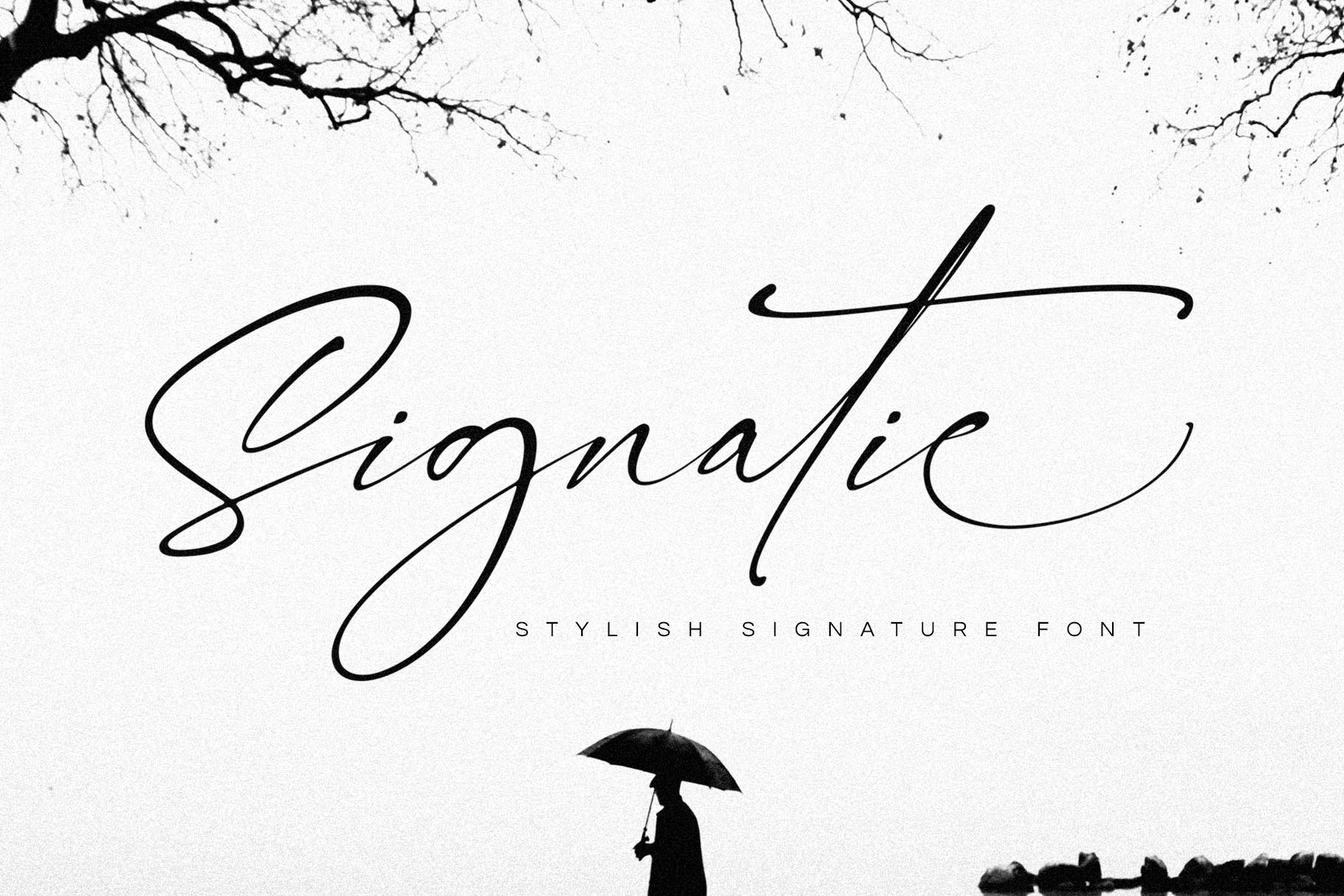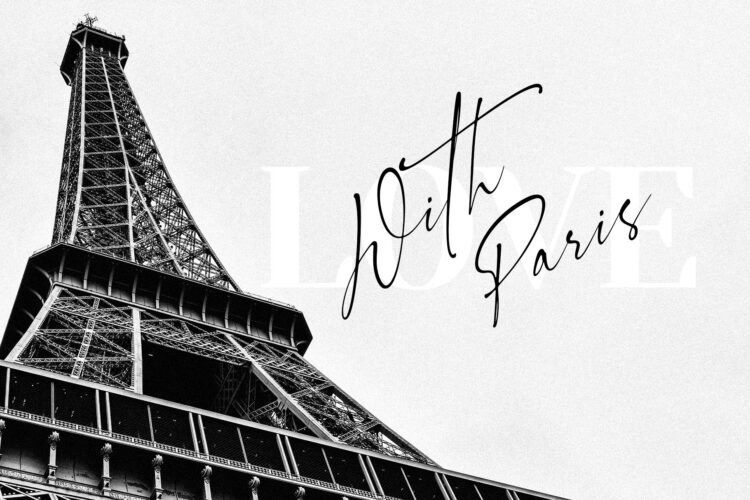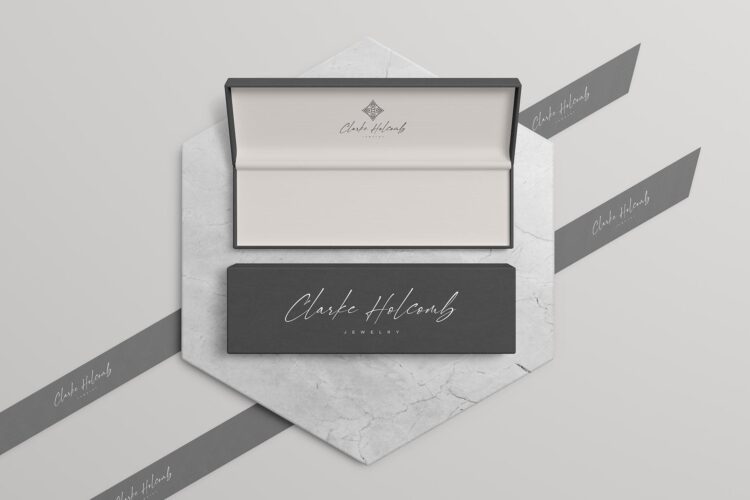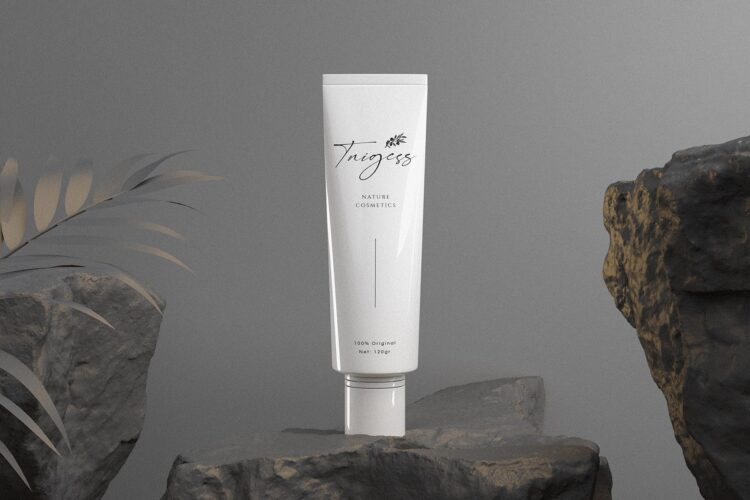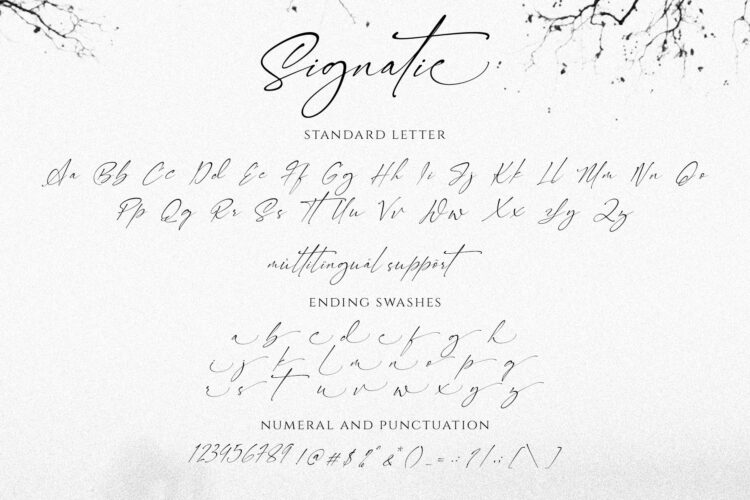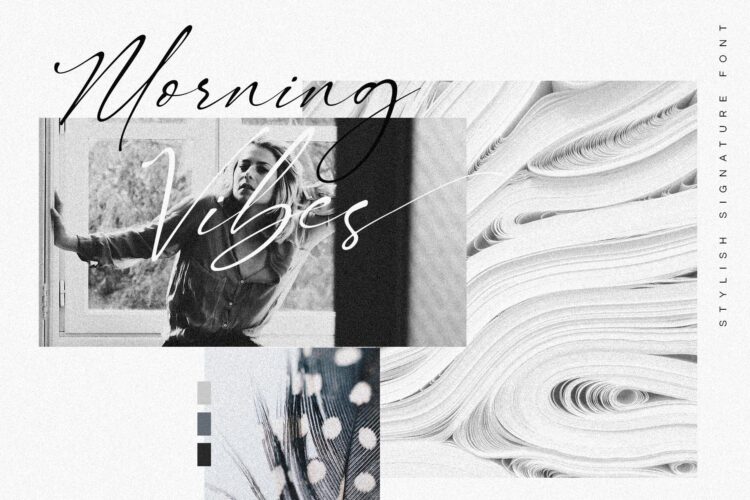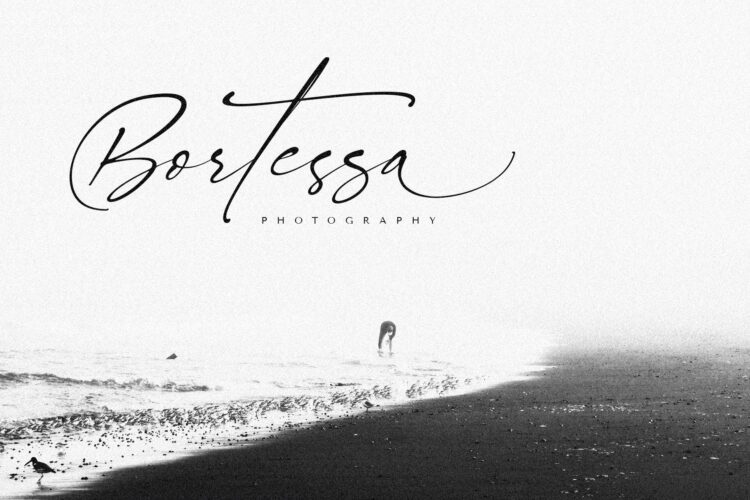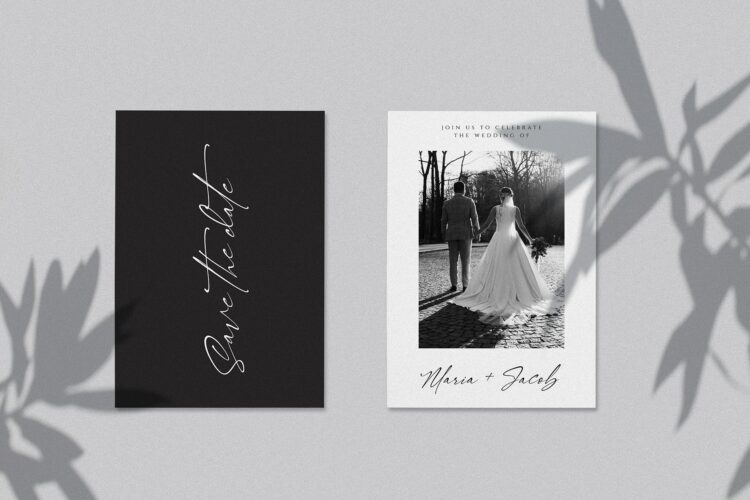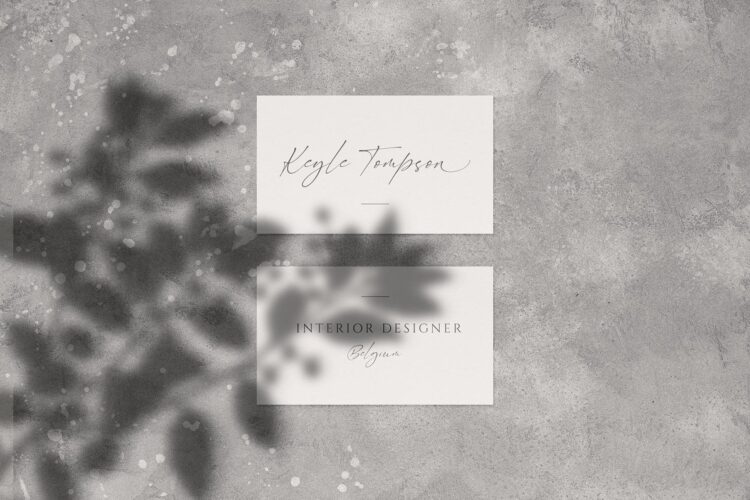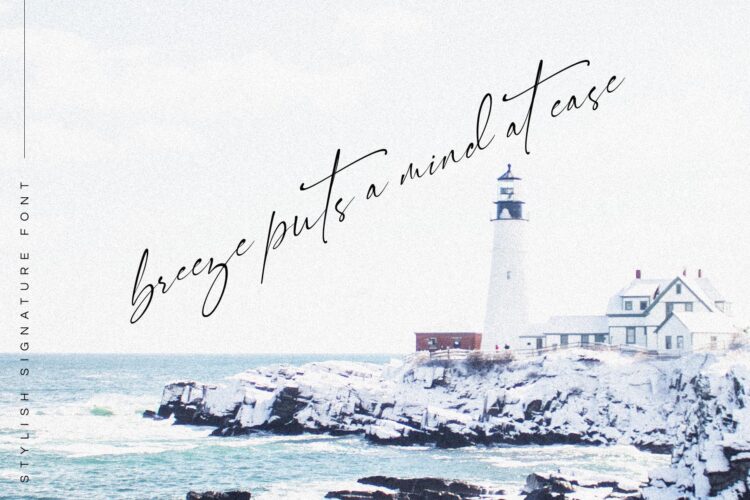
Introducing the new Signatie a stylish signature font !!! For those of you who are needing a touch of elegant, chic and modernity for your designs, this font was created for you!
Signatie was built with OpenType features and includes ligatures, and ending swashes, numbers, punctuation, and it also supports other languages.
The font has smooth texture, so would be perfect for all types of printing techniques, you can do embroidery, laser cut, cricut, gold foil etc.
Signatie | Stylish Signature Font